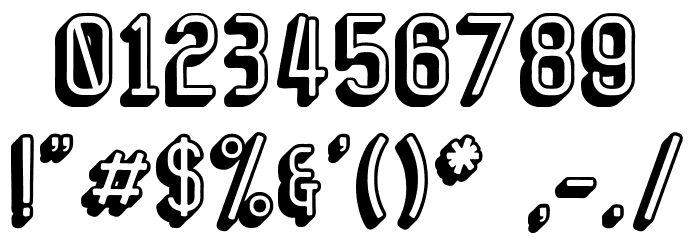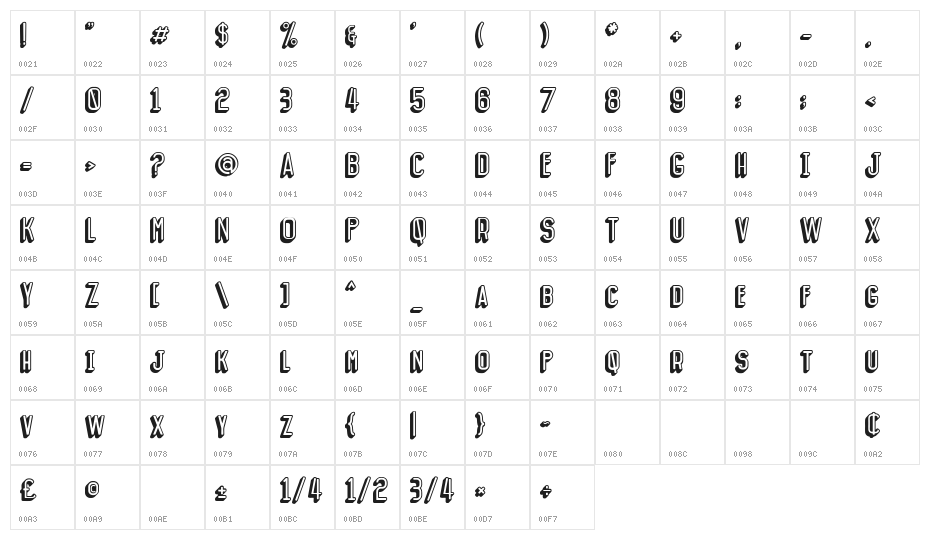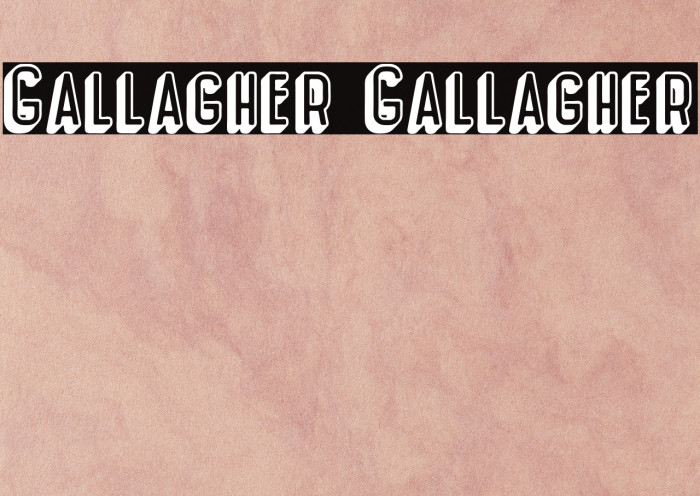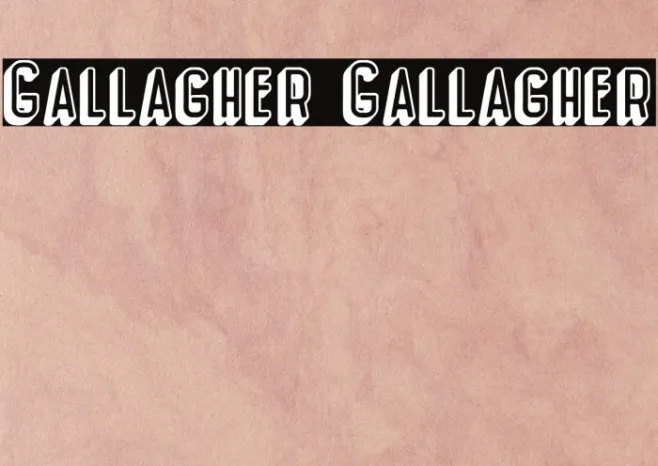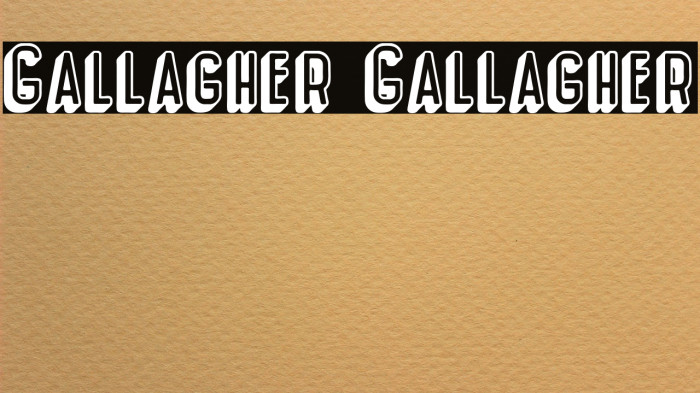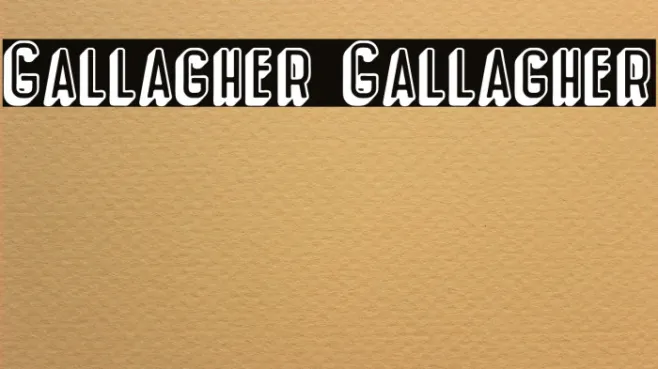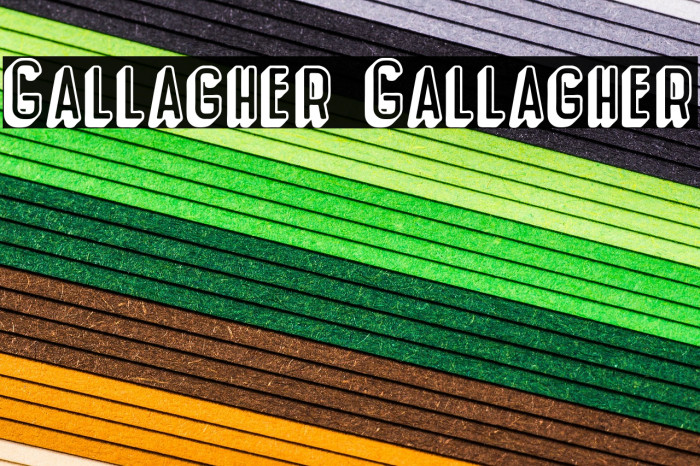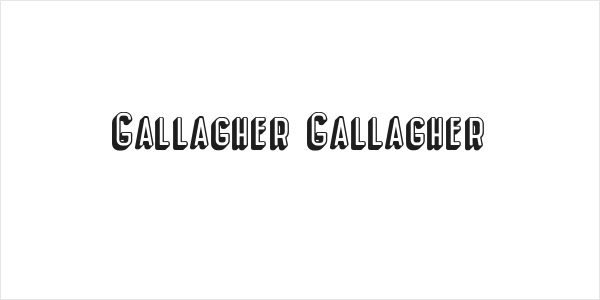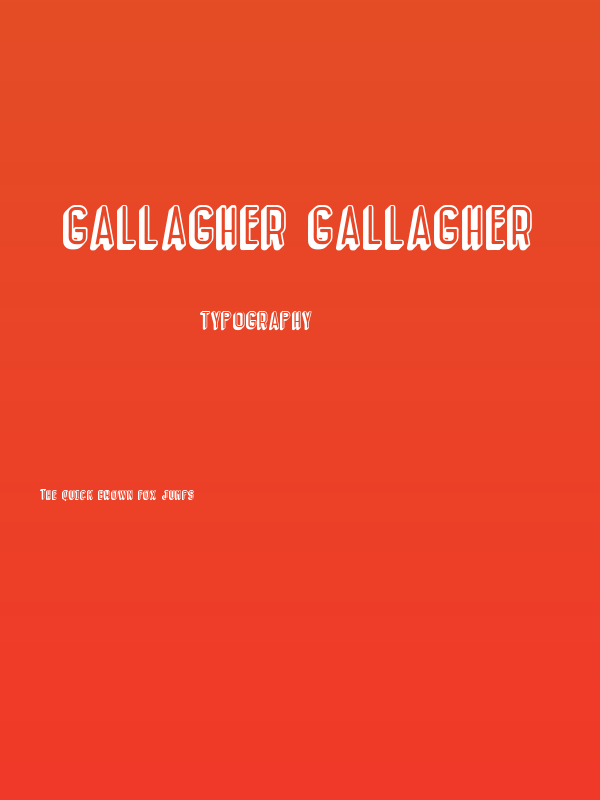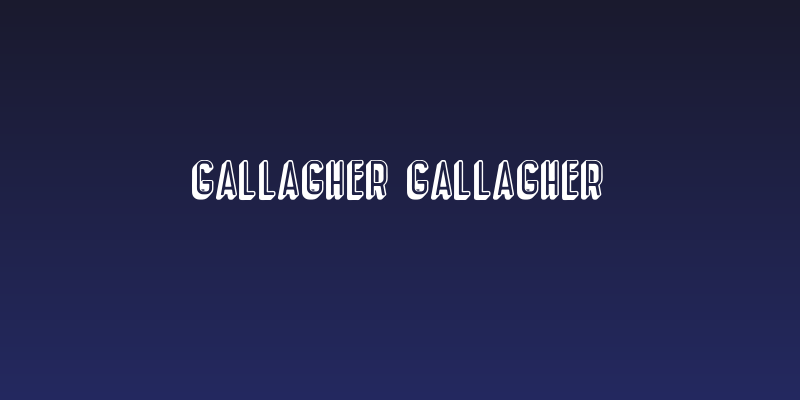
Gallagher Font
Gallagher Description
This font features a bold and playful design with a three-dimensional effect, achieved through a shadow that gives depth to each character. The uppercase and lowercase letters maintain a consistent style, with rounded edges and a slightly condensed form. The numbers and special characters follow the same aesthetic, ensuring uniformity across all glyphs. The font's unique style makes it stand out, perfect for projects that require a touch of creativity and fun. Its boldness and distinct shadowing make it ideal for eye-catching designs.